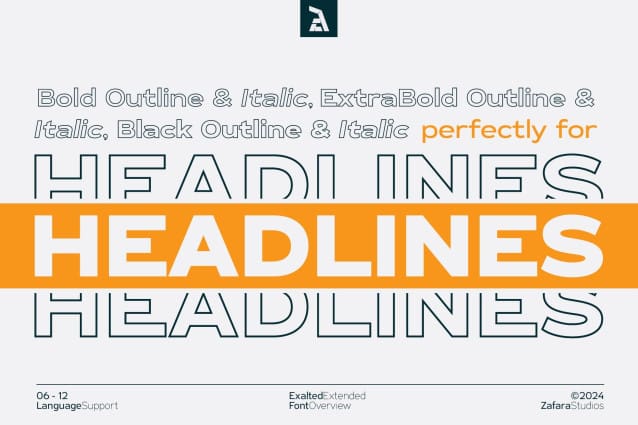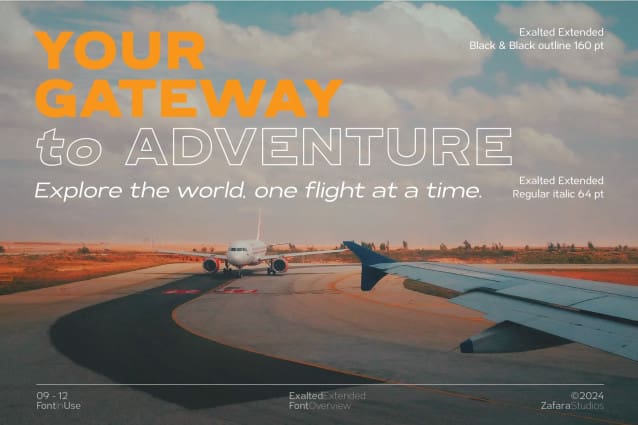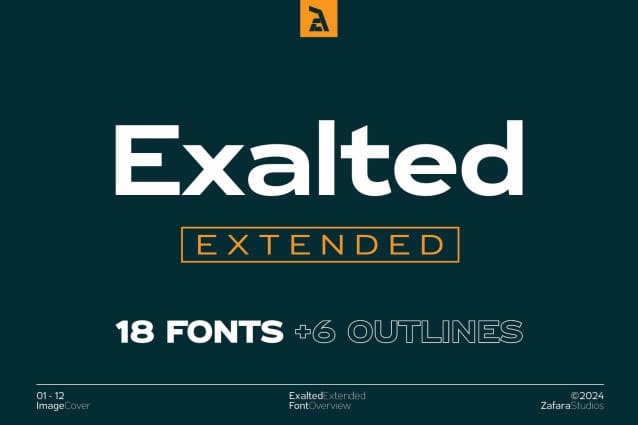
Exalted Extended Font
Exalted Extended Font is a powerful geometric font designed with clean lines and sharp angles, embodying strength and clarity. Its bold geometric forms draw inspiration from circles, squares, and triangles, creating a precise and uniform stroke width. This design choice gives the font a sense of precision and power, ideal for various design applications.